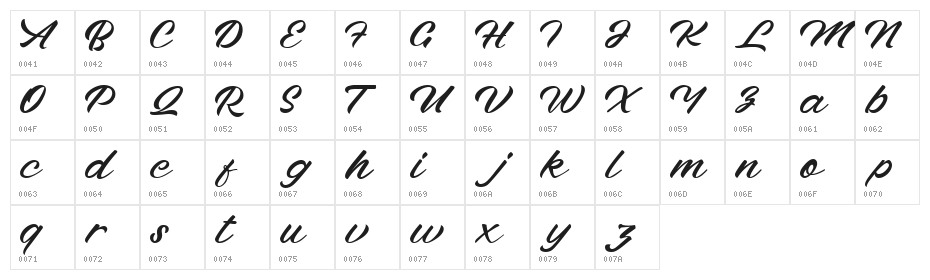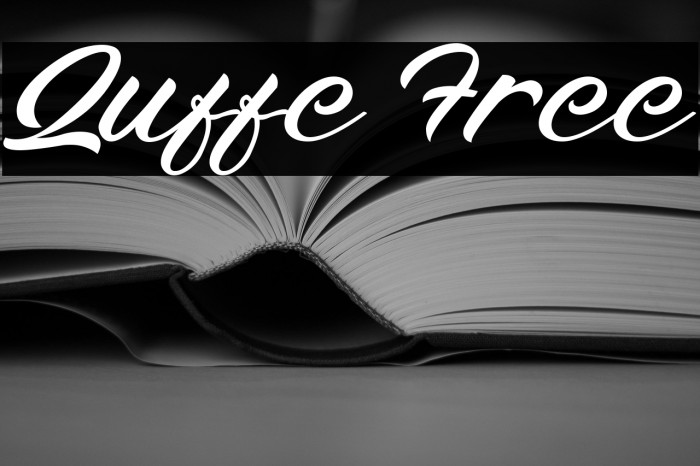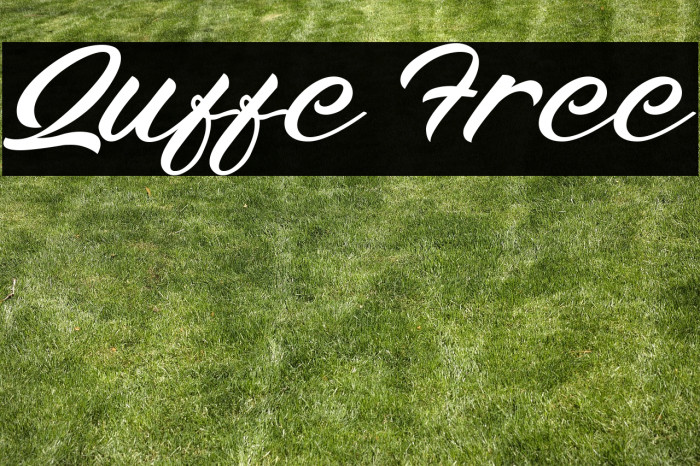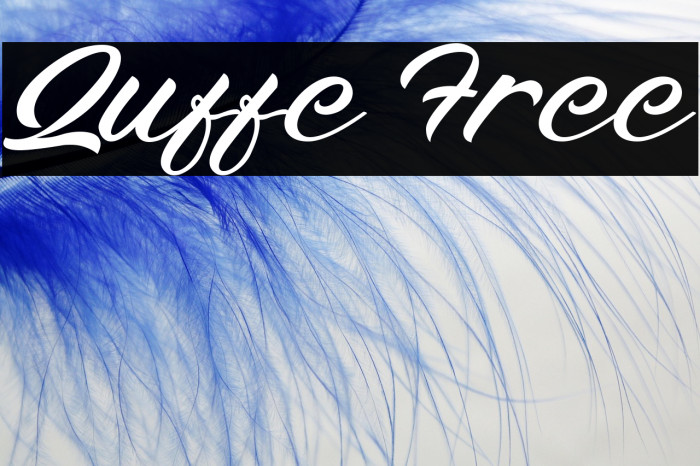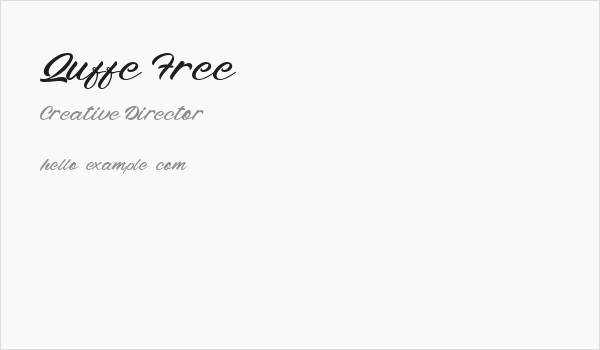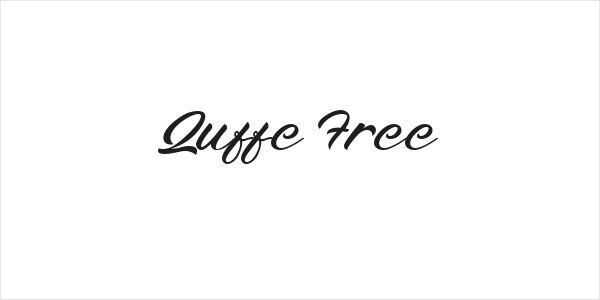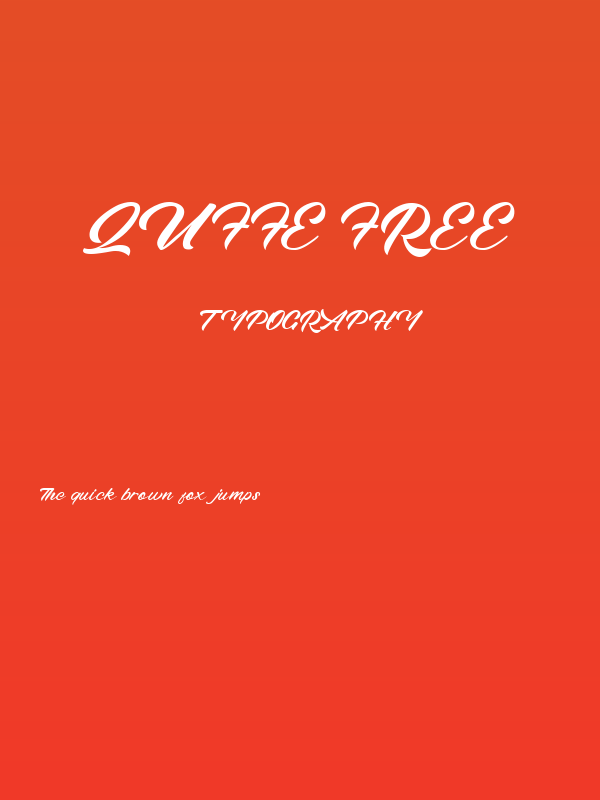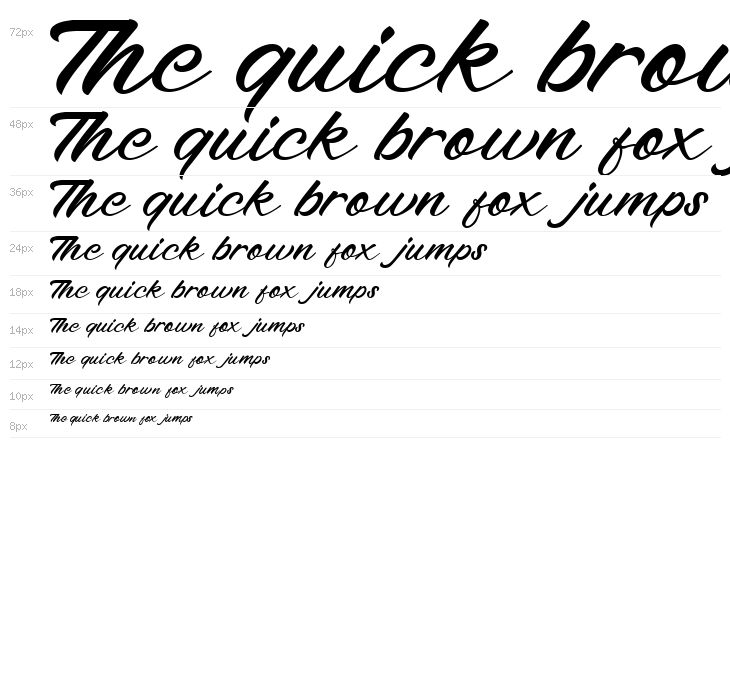
Quffe Free Font
Quffe Free Description
This font features a flowing, cursive style with elegant, sweeping strokes that give it a sophisticated and artistic appearance. The characters are interconnected, creating a seamless and fluid look, reminiscent of traditional calligraphy. The uppercase letters are bold and prominent, while the lowercase letters maintain a consistent flow, enhancing readability. The font's design is both decorative and functional, making it suitable for various creative applications. Its unique style adds a touch of elegance and flair to any project.
| Use Case | Logos, Invitations, Artistic projects |
| Proposed Projects | Ideal for wedding invitations, greeting cards, branding, and artistic projects requiring a touch of elegance. |